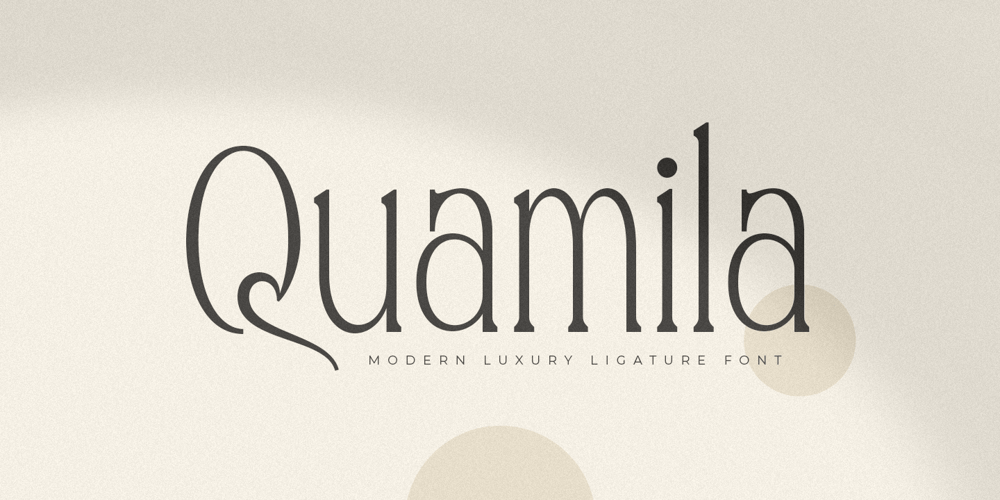
Quamila Font Family was designed by Zamroni Hamzah and published by Sensatype Studio. Quamila contains 2 styles and family package options. A Modern Luxury Serif font that we created special for elegant branding needs, with unique shape will be ready to add value of your brand. And specially for Legacy font, We prepared any characters to help you create unlimited variations for your creative needs.Quamila Modern Luxury Serif Font ready with: Ready with Regular and Bold version Preview as a inspirations that you can do with Quamila font Ready with Lowercase and Uppercase characters Wish you enjoy our font. ๐